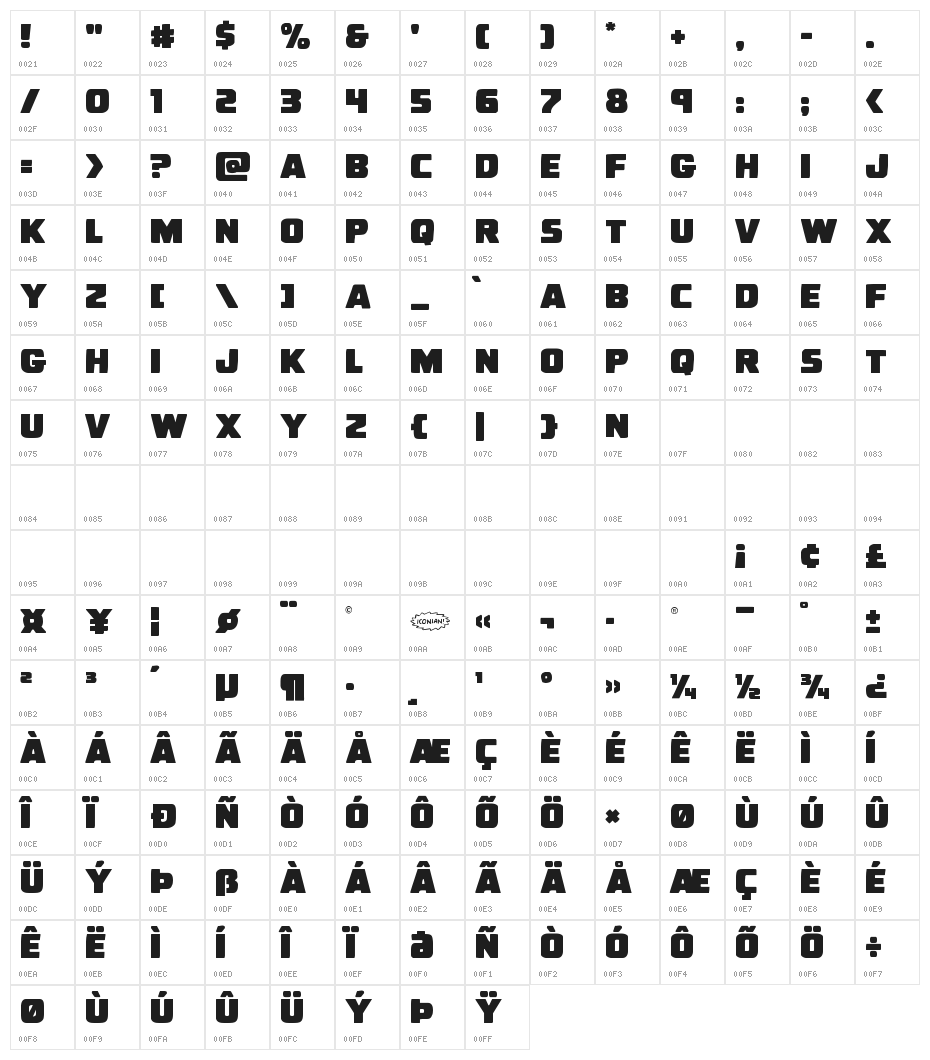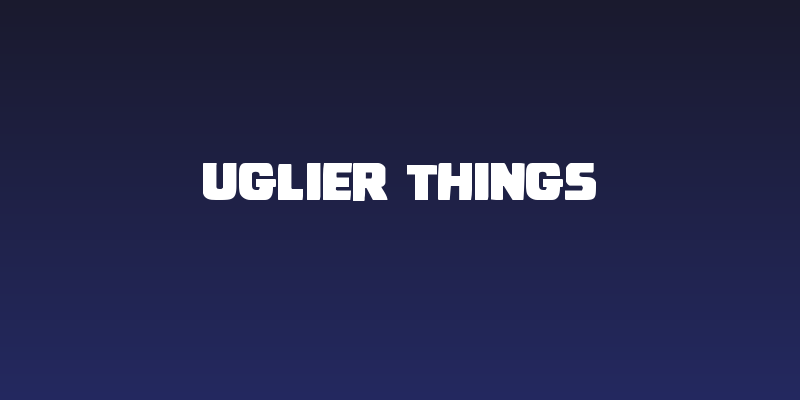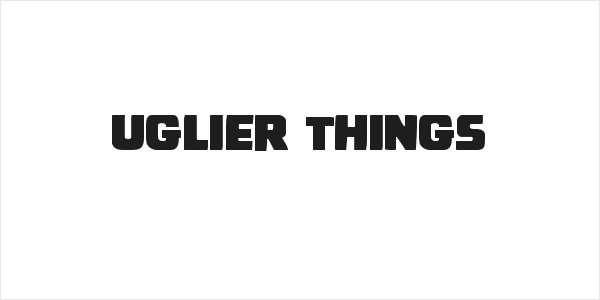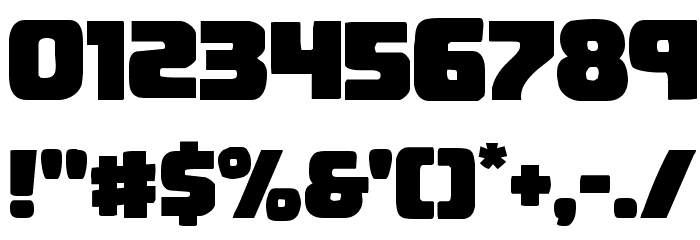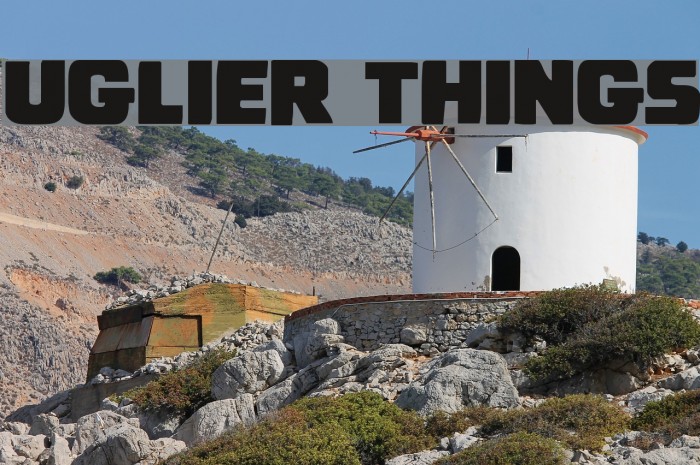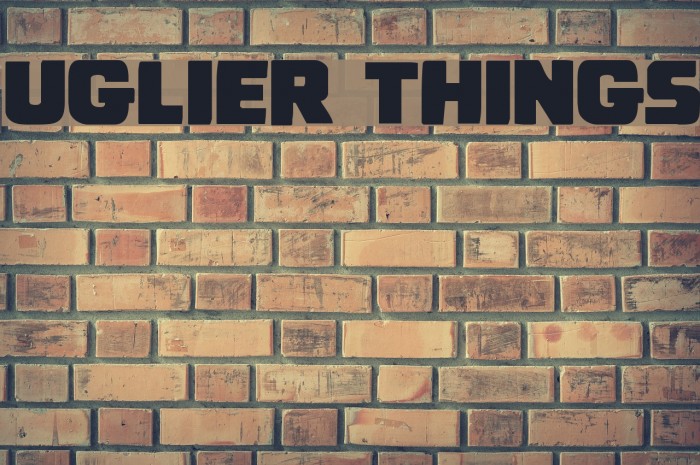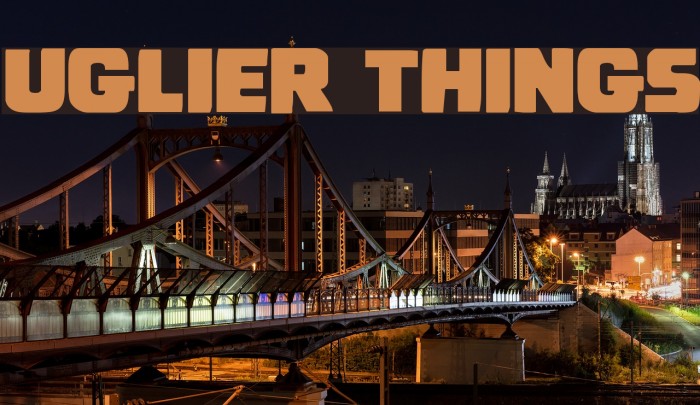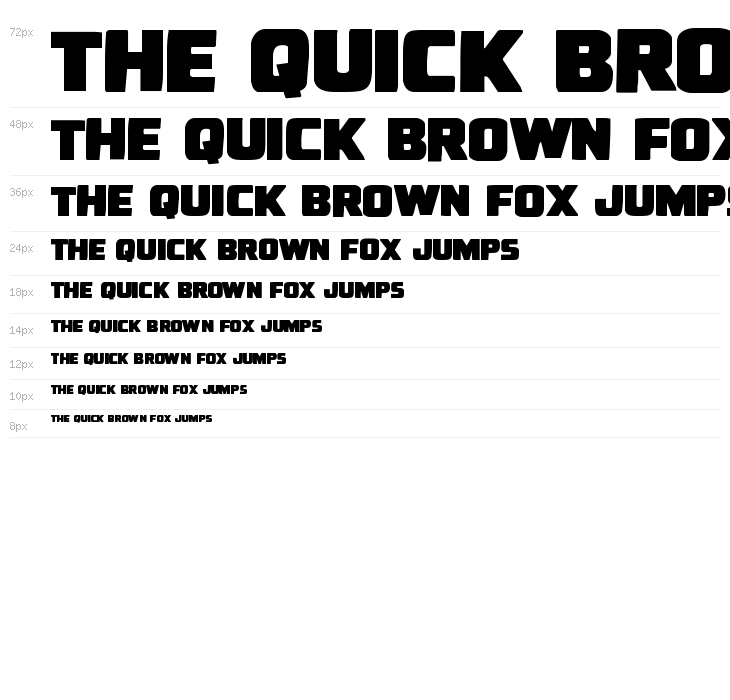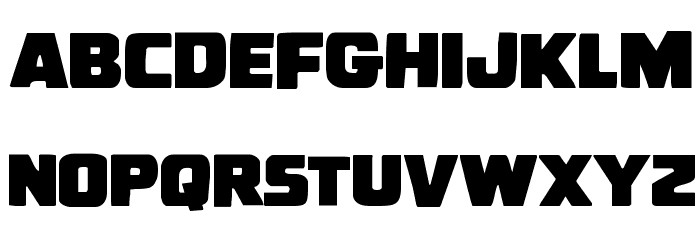
Uglier Things Font
Uglier Things Description
This bold, heavy font features a strong, impactful presence with its thick strokes and solid structure. The characters are uniformly wide, giving it a monolithic appearance that commands attention. Its geometric shapes and clean lines make it ideal for creating a modern, industrial look. The font's boldness is consistent across all characters, including uppercase letters, numbers, and special symbols, ensuring a cohesive and powerful visual impact. Its design is straightforward yet assertive, making it suitable for projects that require a strong, memorable typeface.